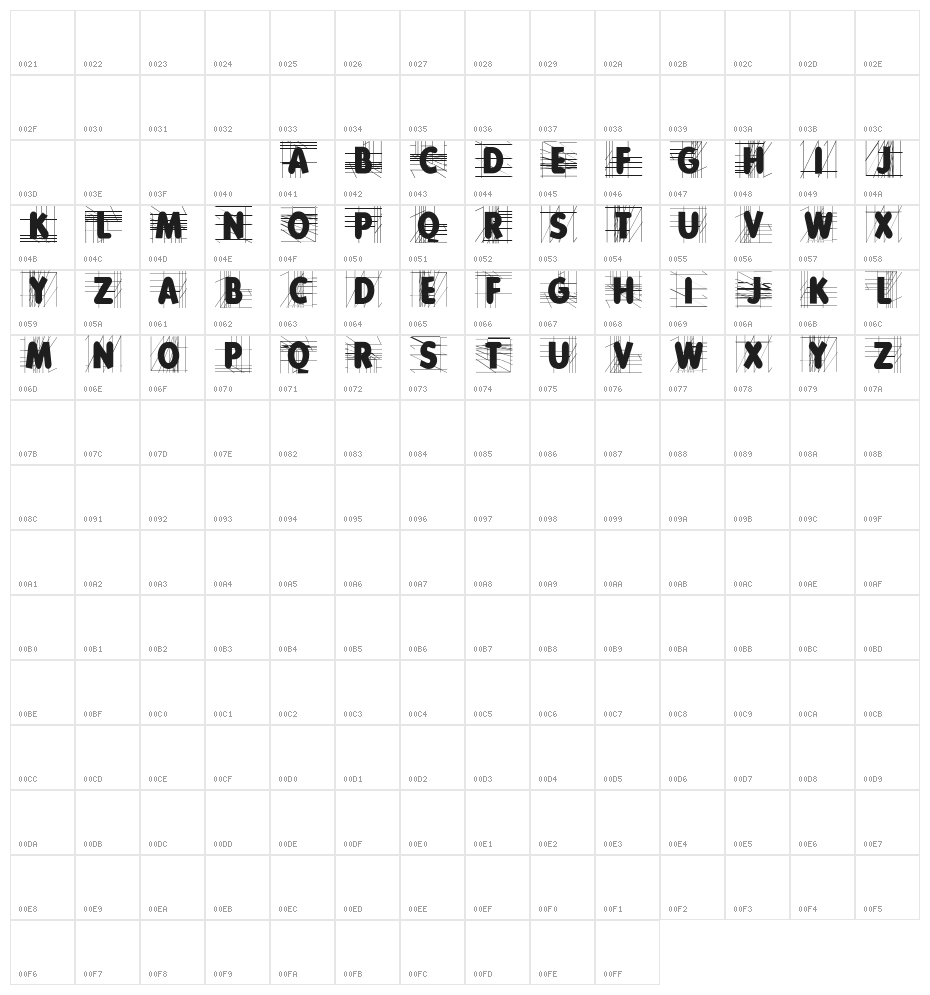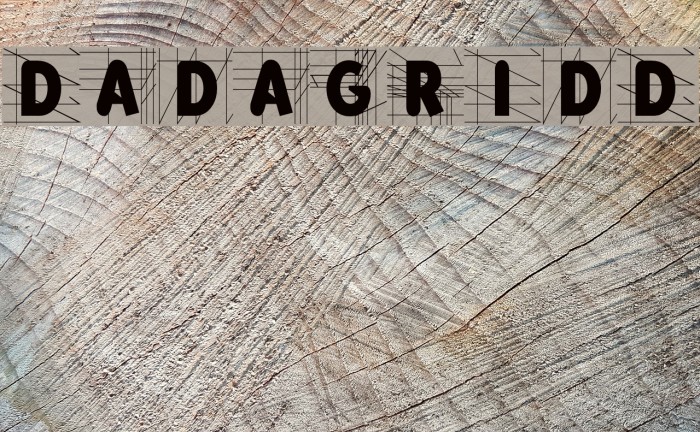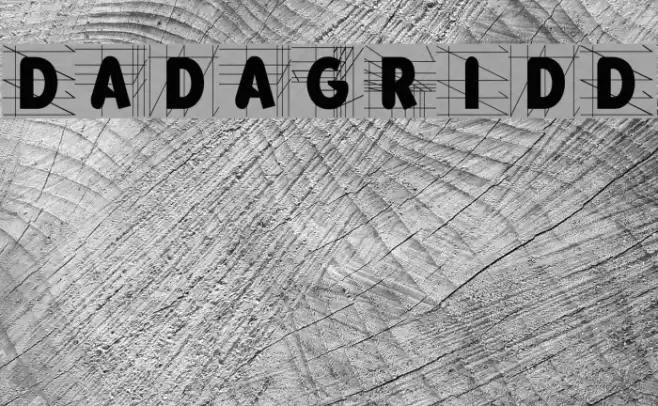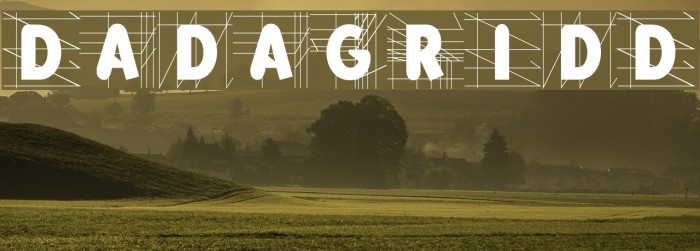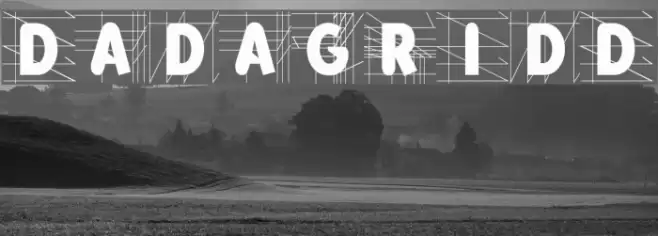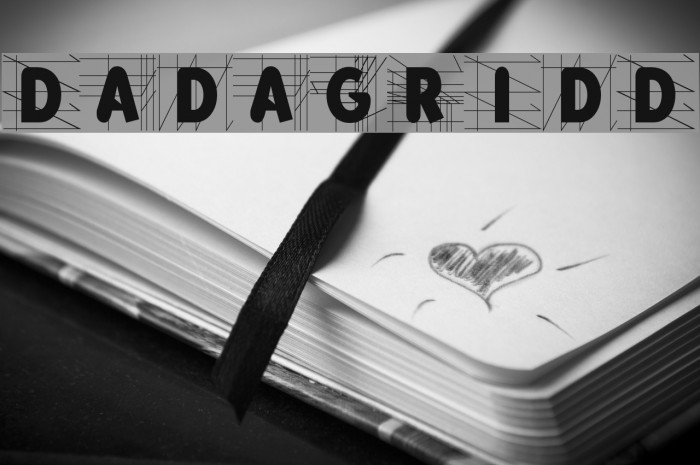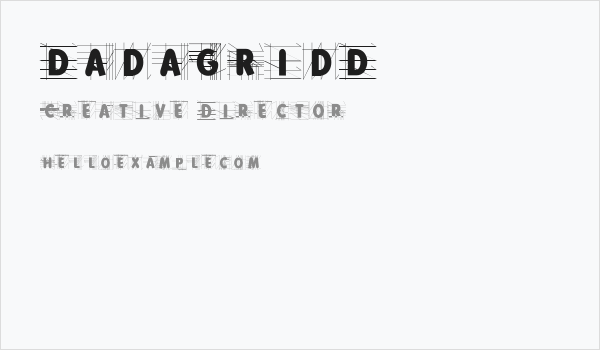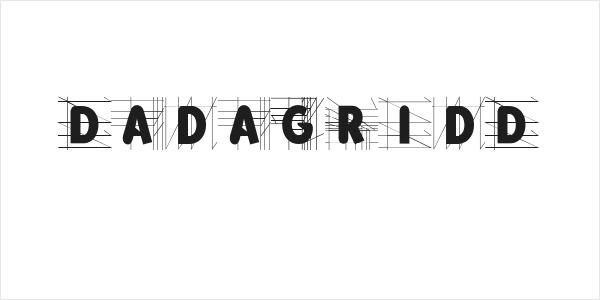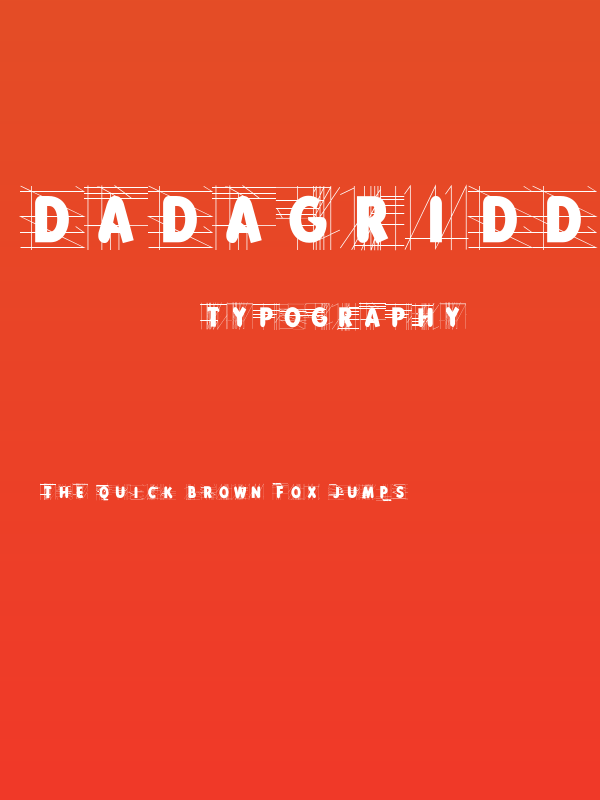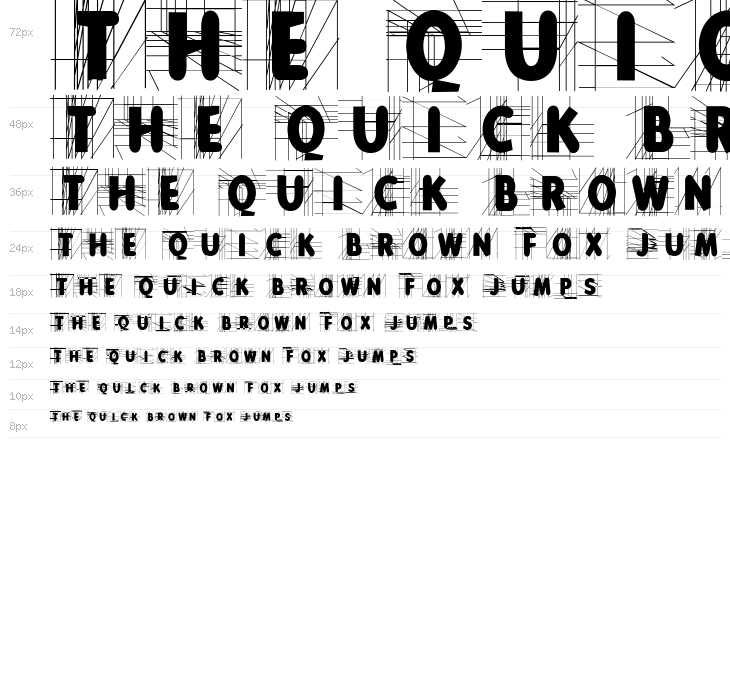
DadaGridD Font
DadaGridD Description
This font features a bold, geometric design with a distinct grid overlay that adds a unique, structured appearance. The characters are blocky and robust, with a modern aesthetic that combines both form and function. The overlay of lines creates an intricate pattern, giving the font a technical and architectural feel. Each letter is well-defined, maintaining clarity despite the complex background. This font is ideal for projects that require a strong visual impact and a contemporary look.
| Proposed Projects | Ideal for architectural designs, technical illustrations, modern posters, and branding that requires a strong visual statement. |